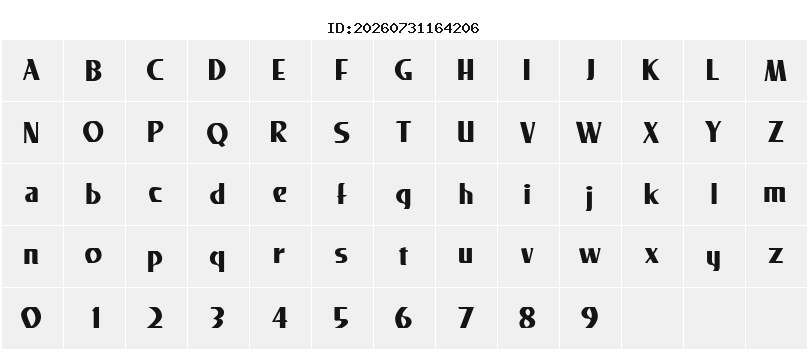
Lester Bold Preview
• Font Name: Lester Bold
• Full Font Name: Lester Bold
About Lester Bold.ttf
Lester Bold.ttf is a modern, elegant sans-serif font designed for ultimate readability and visual harmony. Perfect for branding, headlines, web design, and print materials.